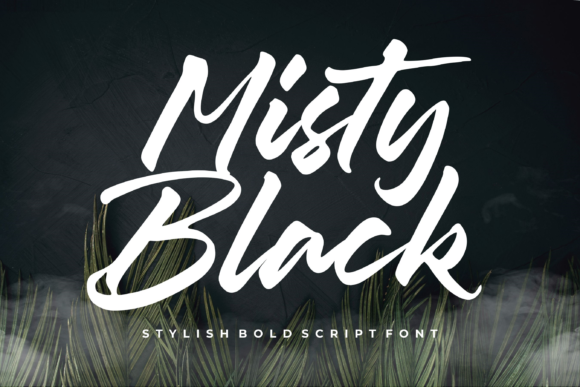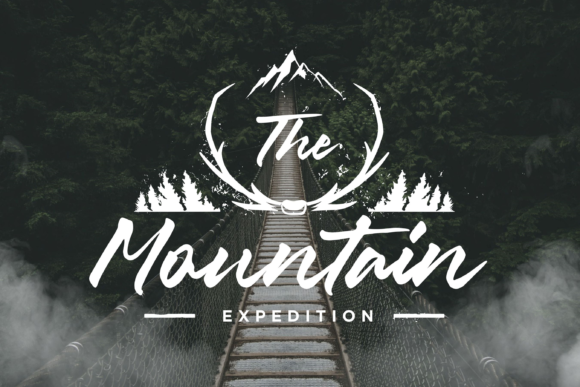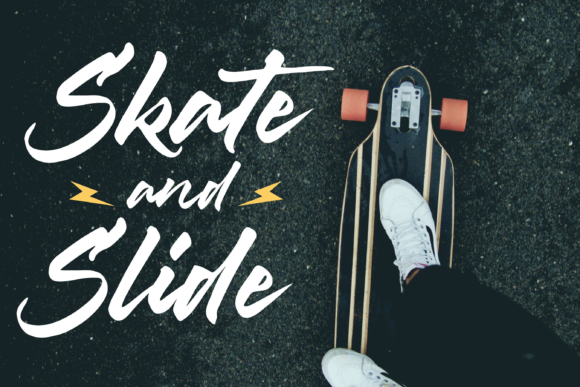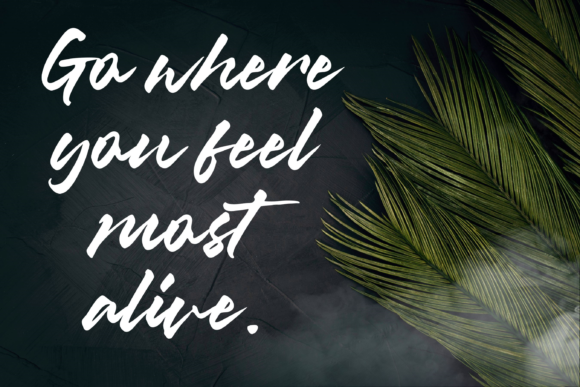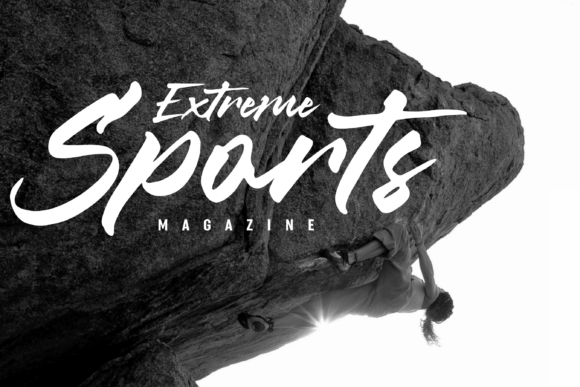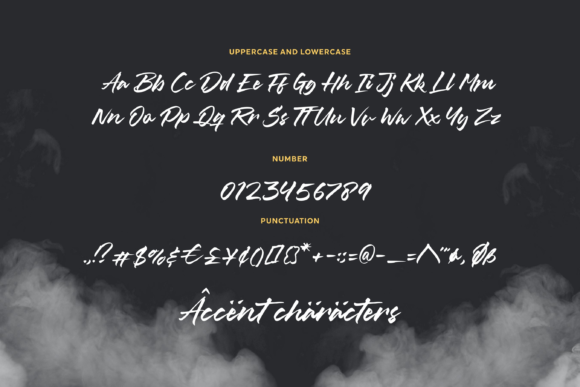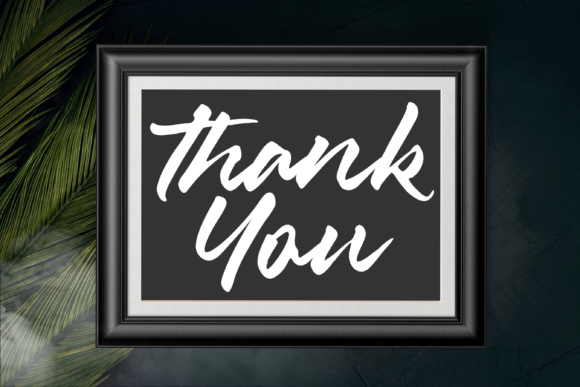
Misty Black Font
About Misty Black Font
Misty Black results out of a stunning pairing of a brush pen and pencil that makes it look incredibly endearing and authentic. Use this gorgeous and unique handwritten font to bring any DIY project to life!